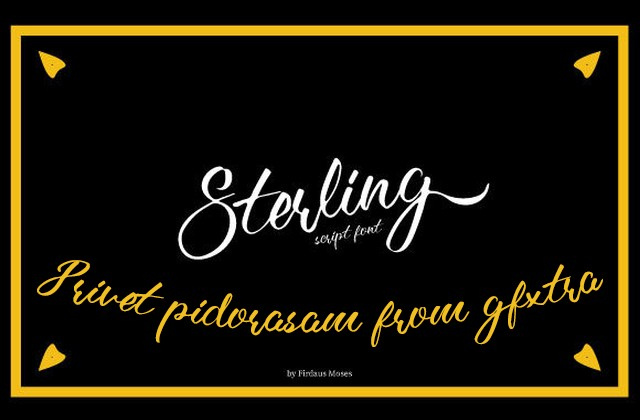
Sterling Font
Sterling Font is perfect for luxury financial services branding, premium banking institutions, high-end investment firm logos, exclusive private wealth management, sophisticated insurance companies, upscale real estate marketing, prestigious law firm identities, and elite business consulting presentations. This distinguished typeface excels in applications where financial prestige and monetary excellence are essential for creating trustworthy and authoritative brand experiences in premium financial sectors.
What makes Sterling Font truly exciting is its impeccable embodiment of financial sophistication and monetary prestige that captures the essence of sterling silver quality and investment-grade excellence. The font features refined letterforms with classical proportions and precious metal-inspired details that evoke the reliability of established financial institutions and the trustworthiness of sound investment principles. Its affluent personality and valuable character create an immediate sense of financial security and professional competence that resonates with high-net-worth clients seeking premium financial services and wealth preservation strategies. The typeface's sterling quality and investment-grade appeal make it perfect for brands wanting to convey prosperity, reliability, and connection to the highest standards of financial excellence.
The Sterling Font family includes multiple weights from Light to Bold, complemented by elegant italic versions that enhance its sophisticated range. The font offers comprehensive OpenType features including old-style figures, small capitals, financial symbols, and extensive multilingual support for international markets. Additional stylistic alternates and currency-inspired elements provide designers with specialized tools for creating premium financial brand systems and wealth management communications.